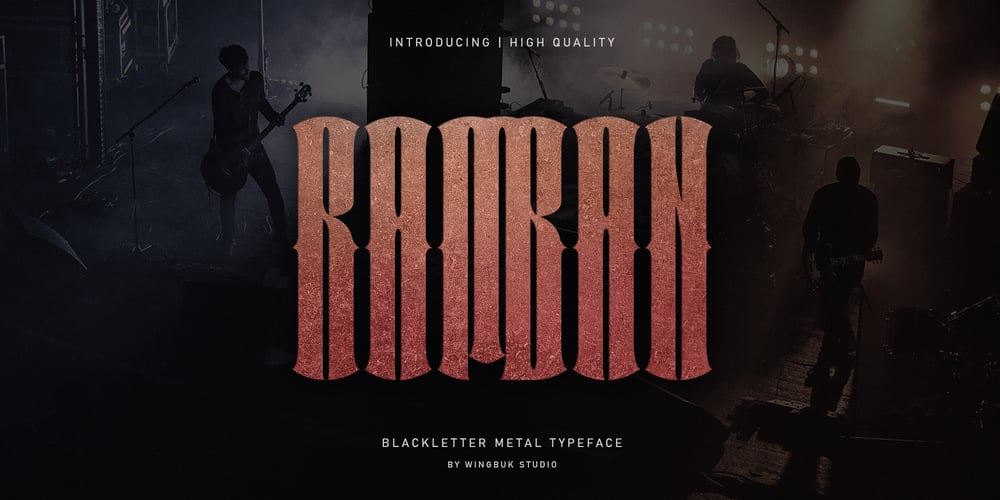
Ramban Display Font Font Family was designed by Adji Shaka and published by WingBuk Studio. Ramban Display Font contains 1 styles and family package options. Ramban is a high quality blackletter typeface for your designs, with metal and gothic accents to make your designs even more exclusive. Can be use for various designs such as band logos, cloting, even film covers or tour posters.Includes Uppercase Letters and unique Roman Numbers with some extra bonus Ligature Characters.No Punctuation !